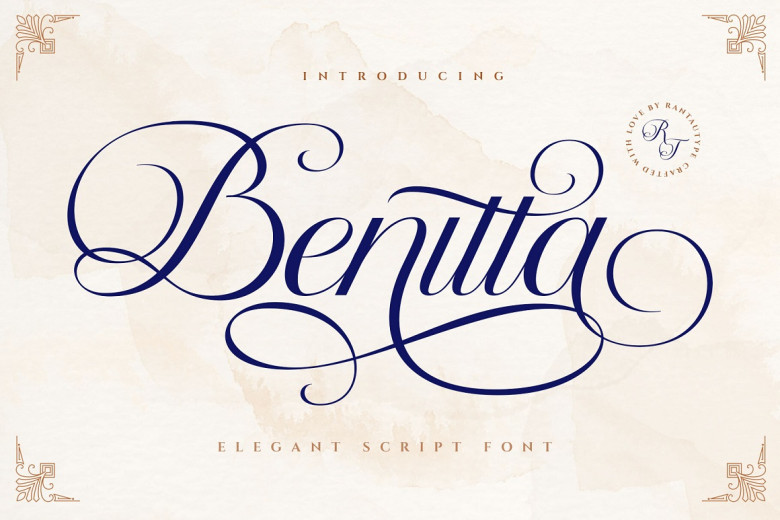
Benitta Font
Benitta is an elegant script calligraphy font with chic yet soft curvatures that is both easy to read professionally as well as attractive for everyday use. This font is modern, feminine and simple yet sophisticated in appearance with multilingual compatibility for reading attractive font.
Additionally, Benitta comes with gorgeous alternates to provide multilingual compatibility allowing it to fit easily into modern designs like watermarks, logos titles or any lifestyle projects like branding, photography, events wedding, magazines, album covers, quotes, business cards, corporate design, corporate business designs as well as many more creative projects!! Benitta will take your project spectacular and beyond!
Benitta Calligraphy Script Font